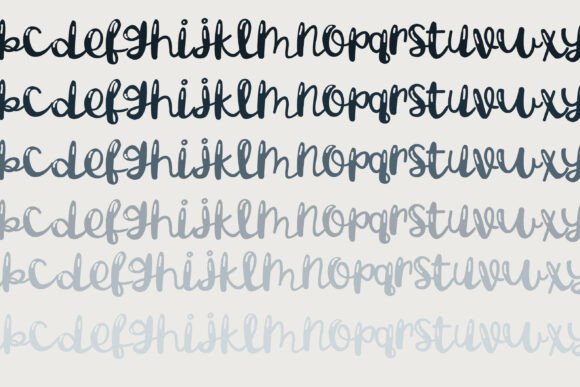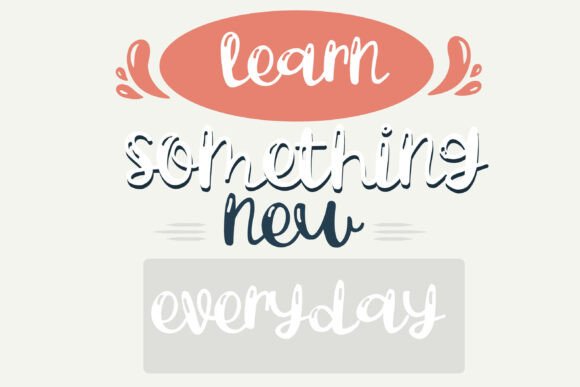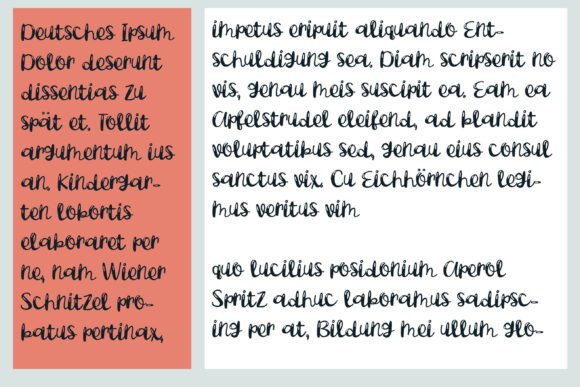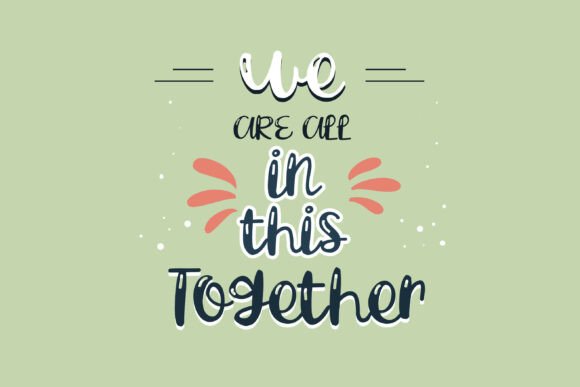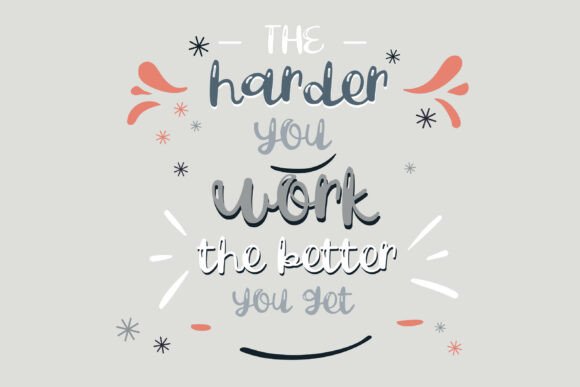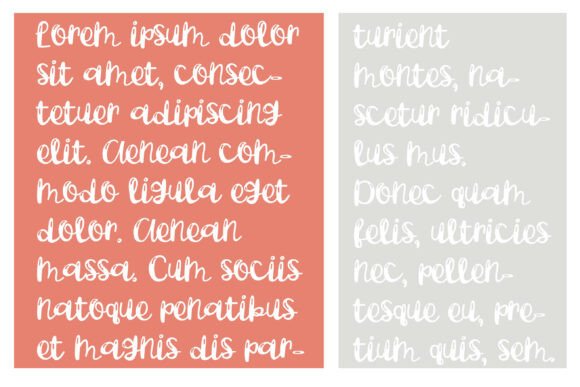
Introducing Bellicose Font: A Fun and Unique Hand-Crafted Script
Are you tired of using the same old fonts for your designs? Look no further than the Bellicose Font, a hand-crafted script that is sure to add a touch of personality to your projects. This fun and unique font is perfect for designers and crafters who want to add a personal touch to their work.
A hand-crafted font is a font that is designed to look like it was written by hand. It is often used for invitations, greeting cards, and other items where a personal touch is desired. Handwritten fonts can be either formal or informal, and they can be used for a variety of purposes. They are perfect for adding a touch of whimsy and charm to your designs.
Features of Bellicose Font
The Bellicose Font is a fun script without descenders, making it perfect for use in titles, headings, and other display text. The font is hand-crafted, giving it a unique and personal feel. The font also comes with a highlighted version, which can be used to add an extra touch of elegance to your designs.
Uses for Bellicose Font
The Bellicose Font is perfect for a variety of uses, including:
- Invitations: Whether you’re planning a wedding, birthday party, or other special event, the Bellicose Font is perfect for creating unique and personalized invitations.
- Greeting cards: Add a personal touch to your greeting cards with the Bellicose Font. It’s perfect for birthdays, holidays, and other special occasions.
- Signs: The Bellicose Font is perfect for creating eye-catching signs for businesses, events, and other uses.
- Social media graphics: Add a touch of personality to your social media graphics with the Bellicose Font. It’s perfect for creating engaging and shareable content.
Benefits of Using Hand-Crafted Fonts
There are many benefits to using hand-crafted fonts like Bellicose Font in your designs. Some of the benefits include:
- Uniqueness: Hand-crafted fonts are unique and can help your designs stand out from the crowd.
- Personality: Hand-crafted fonts can add a touch of personality to your designs, making them more engaging and relatable.
- Flexibility: Hand-crafted fonts can be used for a variety of purposes, from formal to informal.
Tips for Using Bellicose Font
Here are some tips for using the Bellicose Font in your designs:
- Use it sparingly: The Bellicose Font is perfect for use in titles and headings, but it can be overwhelming if used too much. Use it sparingly to add a touch of elegance to your designs.
- Pair it with other fonts: The Bellicose Font pairs well with other fonts, such as sans-serif fonts. Experiment with different pairings to find the one that works best for your design.
- Experiment with colors: The Bellicose Font comes in a highlighted version, which can be used to add an extra touch of elegance to your designs. Experiment with different colors to find the one that works best for your design.
The Bellicose Font is a fun and unique hand-crafted script that is perfect for designers and crafters who want to add a personal touch to their work. With its hand-crafted look and highlighted version, it’s perfect for use in a variety of projects, from invitations to social media graphics. Whether you’re looking to add a touch of whimsy or elegance to your designs, the Bellicose Font is a great choice.